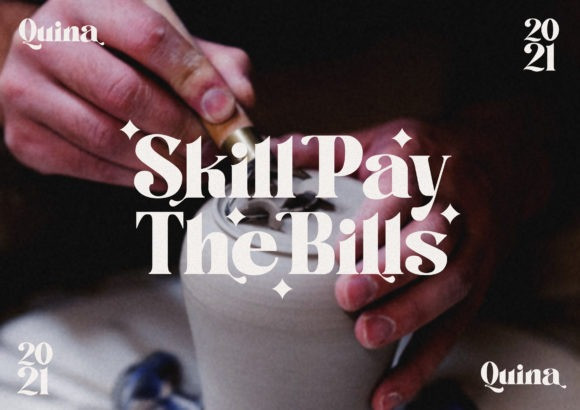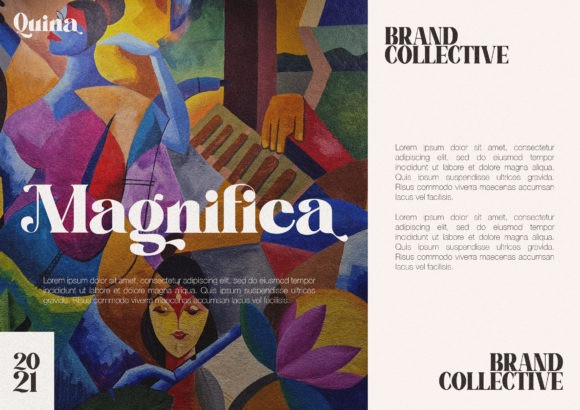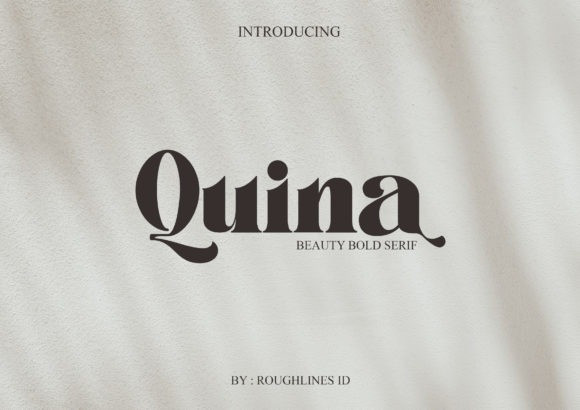
Quina Font
Quina is a modern and trendy serif font that is readable, bold and stylish. It is defined by smooth curves and is perfect for fashion branding or editorial designs. This font is PUA encoded which means you can access all of the glyphs and swashes with ease!